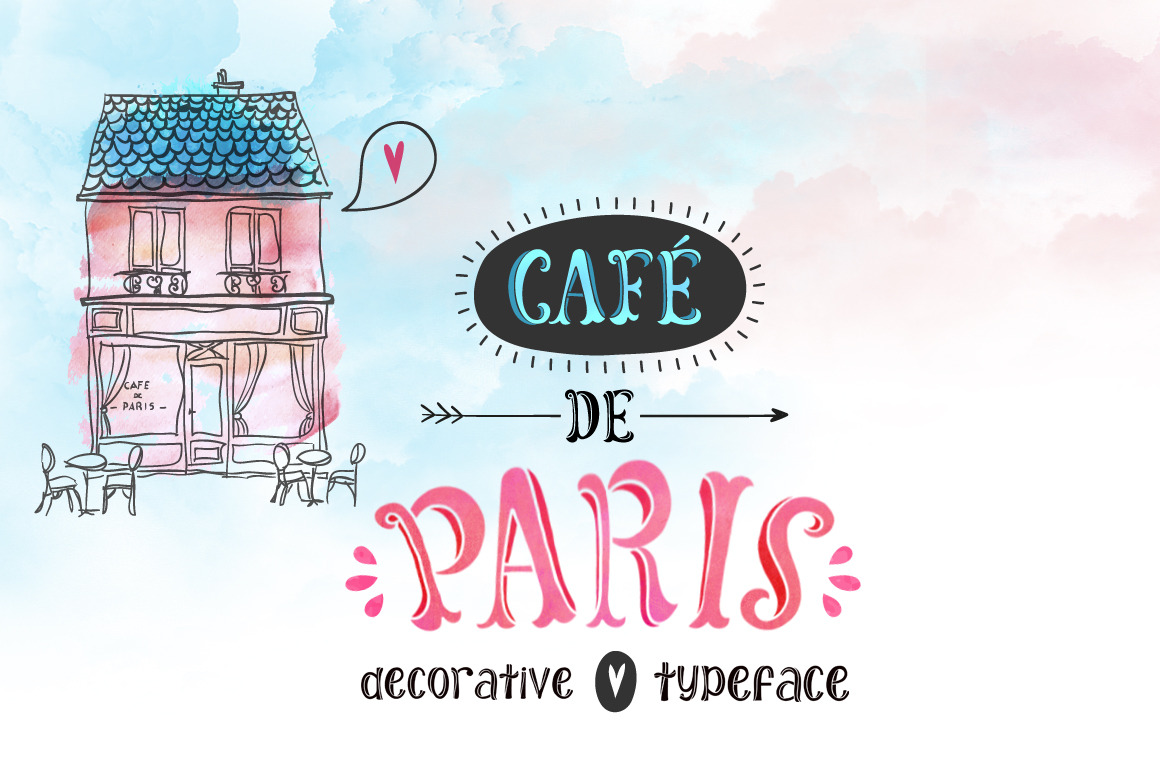
Cafe de Paris, Typeface with Bonus
Cafe de Paris, typeface sweet as pie, is a cheerful, romantic font, that makes you want to say happy things - or learn French :))
Light and playful, inspired by the hand lettering on vintage shop signs and posters, Cafe de Paris allows you to play with shading of both the upper and lowercase glyphs, as I did here (click on panels above to see examples), and experiment with textures and styles, from soft watercolor to the sketchy outlined look.
Cafe de Paris font includes interpunction, multilingual characters and eight decorative glyphs which require access to a glyphs panel.